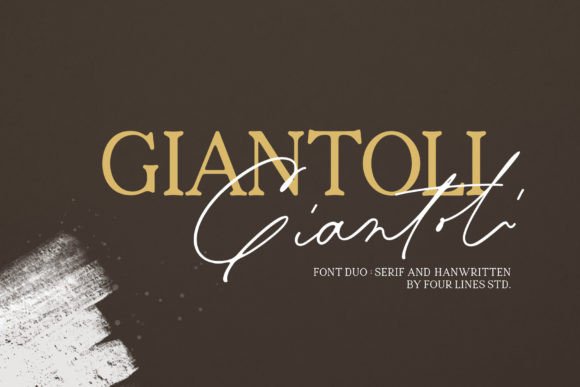
Introducing the Giantoli Duo Font: Elevate Your Design Projects with Elegance and Sophistication
The world of typography is vast and diverse, offering a multitude of font styles to suit various design needs. Among these, the Giantoli Duo Font stands out as a spectacular pair of serif and handwritten fonts that can add a casual, aesthetic, and elegant touch to your design projects. In this article, we’ll explore the features, benefits, and uses of the Giantoli Duo Font, and how it can bring your creative ideas to life.
What is the Giantoli Duo Font?
The Giantoli Duo Font is a carefully crafted pair of fonts, consisting of a serif and a handwritten font, designed to work together seamlessly or separately to enhance your design projects. This font duo is perfect for those who want to add a touch of elegance and sophistication to their work without compromising on readability.
The serif font in the Giantoli Duo is classic and timeless, with clean lines and precise curves that exude professionalism. On the other hand, the handwritten font is more relaxed and casual, with a personal touch that adds warmth and character to your designs.
Key Features of the Giantoli Duo Font
- Versatility: The Giantoli Duo Font is incredibly versatile, making it suitable for a wide range of design projects, from branding and advertising to packaging and digital media.
- Elegance: The serif font in the duo is elegant and sophisticated, perfect for creating a professional image.
- Personality: The handwritten font adds a personal touch to your designs, making them more approachable and engaging.
- Readability: Both fonts in the duo are highly readable, ensuring that your message is communicated clearly and effectively.
Benefits of Using the Giantoli Duo Font
Using the Giantoli Duo Font in your design projects offers several benefits, including:
- Unique Visual Identity: The combination of serif and handwritten fonts creates a unique visual identity that sets your brand or project apart from others.
- Emotional Connection: The handwritten font in the duo helps create an emotional connection with your audience, making your message more relatable and memorable.
- Flexibility: The Giantoli Duo Font can be used in various design contexts, from digital media to print materials, giving you the flexibility to experiment with different formats.
- Time-Saving: With the Giantoli Duo Font, you can create professional-looking designs quickly and efficiently, saving you time and effort.
How to Use the Giantoli Duo Font in Your Design Projects
Here are some ideas on how to incorporate the Giantoli Duo Font into your design projects:
- Branding: Use the serif font for your logo and the handwritten font for taglines or marketing materials to create a cohesive brand image.
- Advertising: Combine the two fonts to create eye-catching ad copy that grabs attention and communicates your message effectively.
- Packaging: Add a personal touch to your product packaging with the handwritten font, while using the serif font for product information and labels.
- Digital Media: Use the Giantoli Duo Font in your website design, social media graphics, or email newsletters to create a consistent and engaging visual identity.
Tips for Pairing the Giantoli Duo Font with Other Design Elements
To get the most out of the Giantoli Duo Font, consider the following tips when pairing it with other design elements:
- Balance: Balance the elegance of the serif font with the playfulness of the handwritten font to create visual harmony.
- Contrast: Use contrasting colors or textures to make your text stand out and create visual interest.
- Whitespace: Don’t be afraid to use whitespace to create a clean and uncluttered design that lets your typography shine.
- Imagery: Pair your typography with relevant imagery that complements your message and enhances your design.
The Giantoli Duo Font is a powerful tool for designers looking to add a touch of elegance and sophistication to their work. With its versatility, readability, and unique visual identity, this font duo is perfect for a wide range of design projects. By incorporating the Giantoli Duo Font into your design workflow, you’ll be able to create stunning designs that engage and inspire your audience.